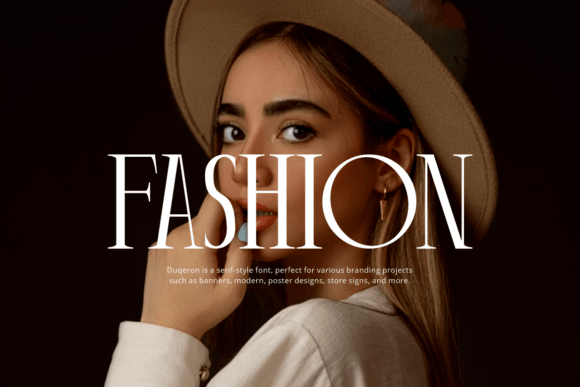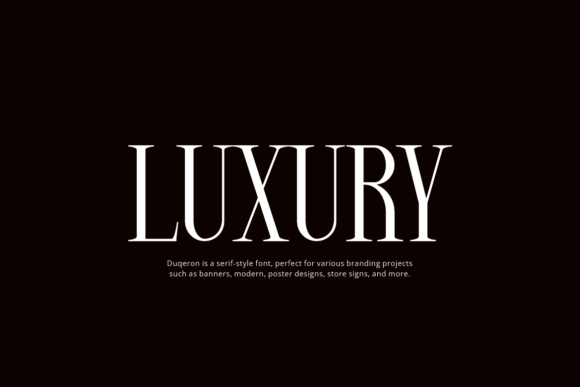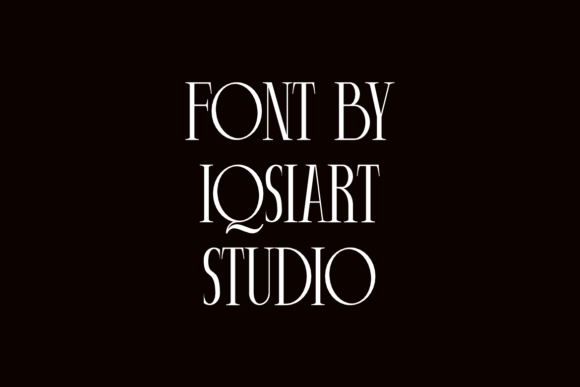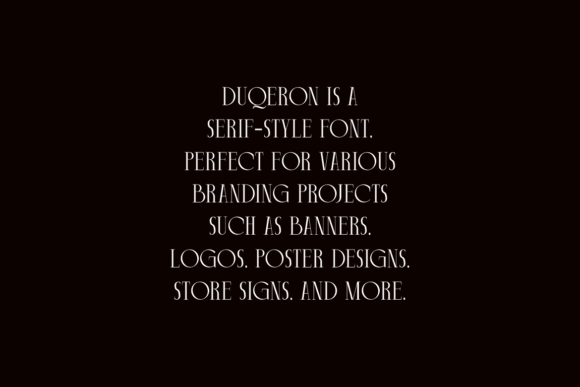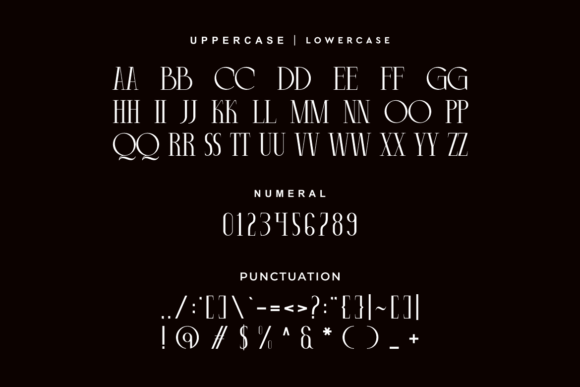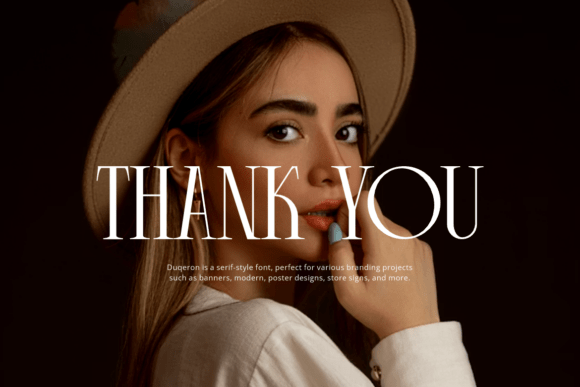
Introducing Duqeron Font: Elevate Your Designs with a Serif and Authentic Display Typeface
Are you on the hunt for a font that can elevate your designs and add a touch of sophistication? Look no further than Duqeron Font, a serif and authentic display typeface that suits a variety of design needs. In this article, we’ll dive into the world of Duqeron Font, exploring its features, benefits, and uses, as well as provide you with a comprehensive guide on how to make the most of this versatile font.
What is Duqeron Font?
Duqeron Font is a carefully crafted serif typeface designed to make a statement. Its classic and elegant design makes it perfect for a wide range of design projects, from branding and advertising to packaging and editorial design. With its authentic display style, Duqeron Font is sure to add a touch of sophistication and refinement to any design.
Key Features of Duqeron Font
So, what sets Duqeron Font apart from other typefaces? Here are some of its key features:
- Serif and Authentic Display Style: Duqeron Font boasts a classic serif design that exudes elegance and sophistication.
- Versatile: This font is perfect for a wide range of design projects, from digital designs to print materials.
- Wide Range of Themes and Font Styles: With Duqeron Font, you have access to a wide range of themes and font styles to choose from, ensuring that you find the perfect fit for your project.
Benefits of Using Duqeron Font
So, why should you choose Duqeron Font for your next design project? Here are just a few benefits of using this versatile typeface:
- Enhance Your Brand’s Visual Identity: Duqeron Font can help elevate your brand’s visual identity and add a touch of sophistication to your designs.
- Stand Out from the Crowd: With its unique and authentic display style, Duqeron Font can help your designs stand out from the crowd and grab attention.
- Save Time and Effort: With Duqeron Font, you have access to a wide range of themes and font styles, saving you time and effort in searching for the perfect font.
Exploring the Duqeron Font Family
Tips and Tricks for Using Duqeron Font
Here are a few tips and tricks to help you get the most out of Duqeron Font:
- Experiment with Different Font Sizes: Duqeron Font looks great in a range of font sizes, from large display headings to smaller body text.
- Pair with Other Fonts: Try pairing Duqeron Font with other fonts to create a unique and visually appealing design.
- Use in a Variety of Design Projects: From branding and advertising to packaging and editorial design, Duqeron Font is perfect for a wide range of design projects.